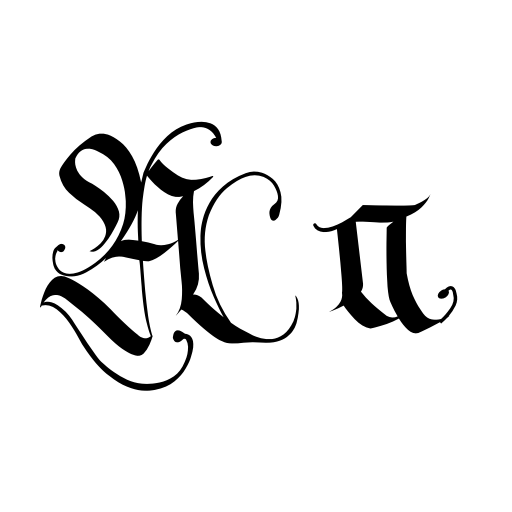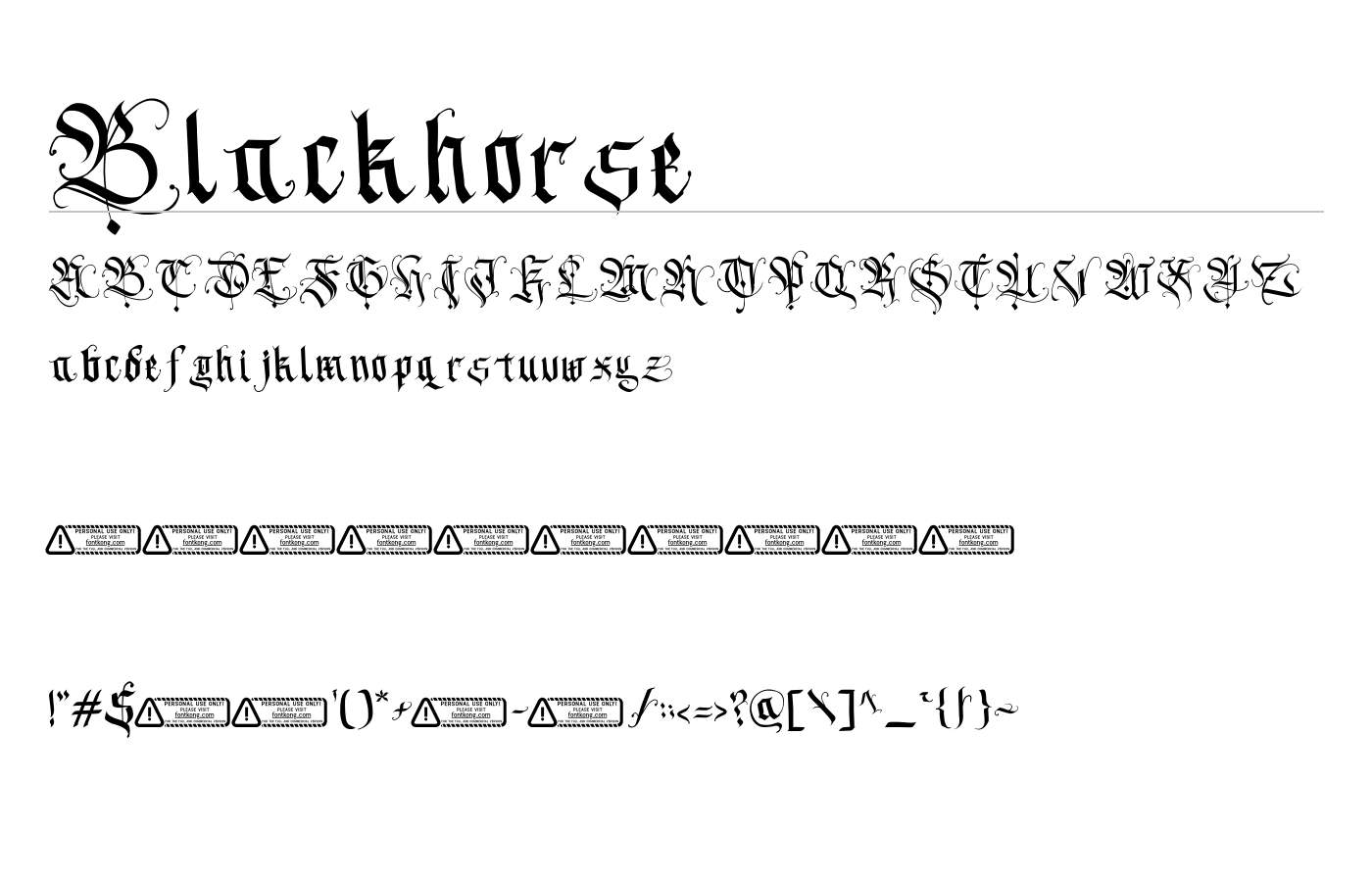
Blackhorse is a decorative blackletter font that evokes a classic, medieval feel with its intricate, sharp serifs and dramatic stroke contrasts. Its ornate uppercase letters and slightly more restrained lowercase set create a striking, vintage look ideal for designs that aim to convey tradition, elegance, or Gothic-inspired themes. This font works best for logos, headlines, or branding projects where a bold, historic statement is desired.
Blackhorse Font
About Blackhorse Font
| Font family | Blackhorse Font |